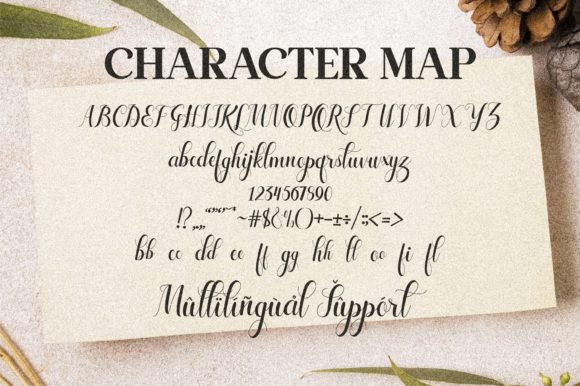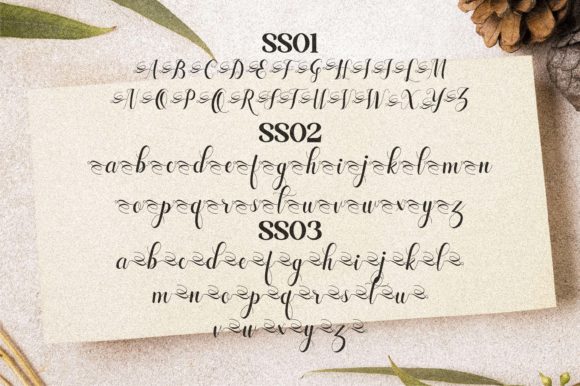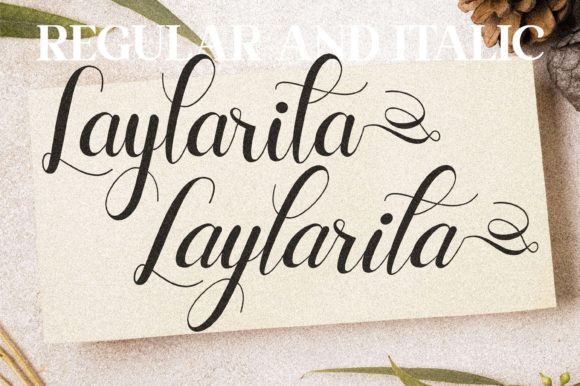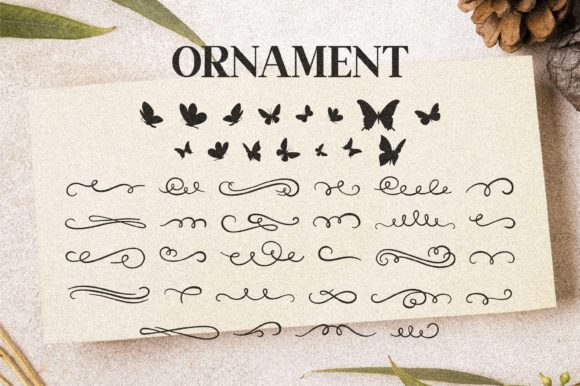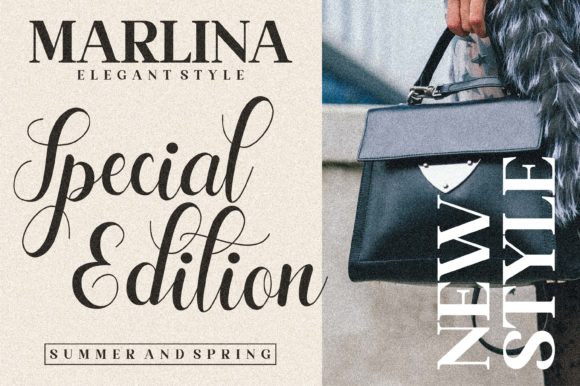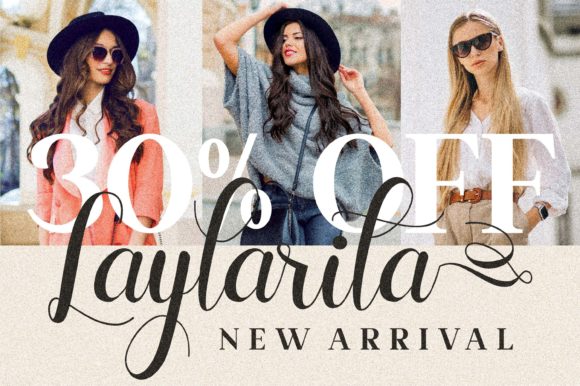
Introduction to Laylarita Font
Laylarita is a delicate and elegant handwritten font.
| 👤 Author | Letterena Studios |
Its distinct and well rounded letters make this font a masterpiece Fall in love with its incredibly versatile style and use it to create spectacular designs.
Key Features of Laylarita Font
Why Choose Laylarita Font?